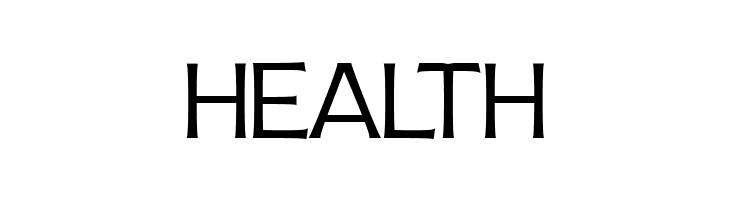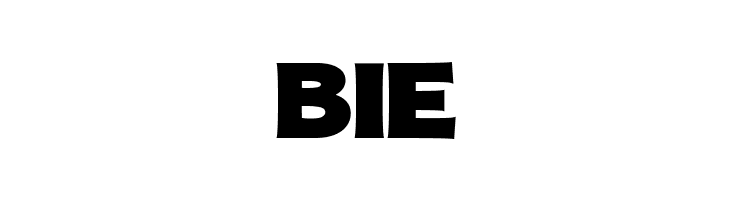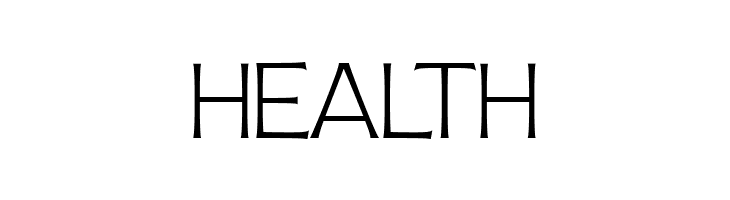
MollySansNPERSONAL-Black Font
A bold, condensed font with strong, impactful strokes.
MollySansNPERSONAL-Bold Font
A bold, high-contrast font with a dynamic and impactful style.
MollySansNPERSONAL-Medium Font
A bold, modern sans-serif font with a slightly condensed style.
MollySansNPERSONAL-Thin Font
A modern, thin sans-serif font with a clean and geometric style.
MollySansNPERSONAL-Light Font
A modern, hand-drawn style font with a clean and playful design.